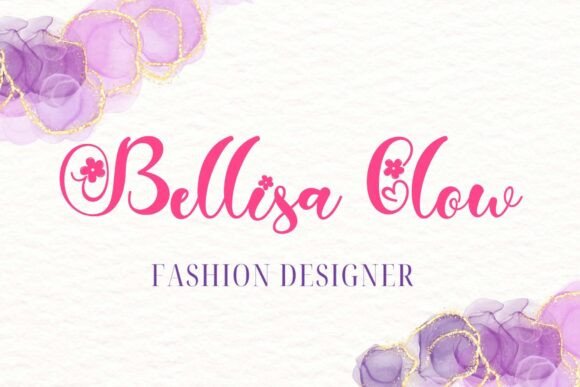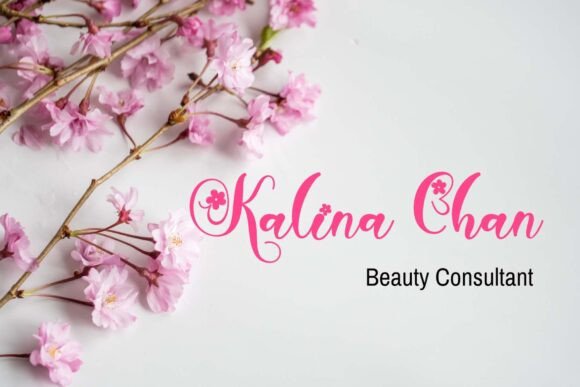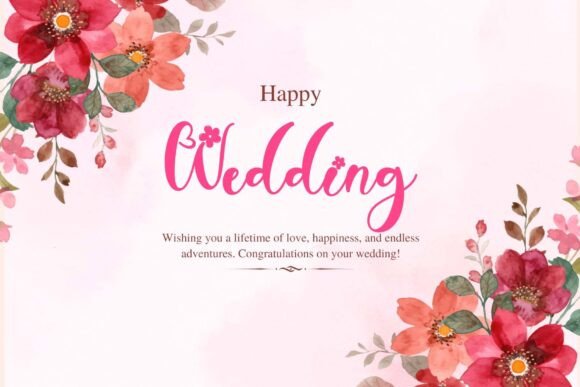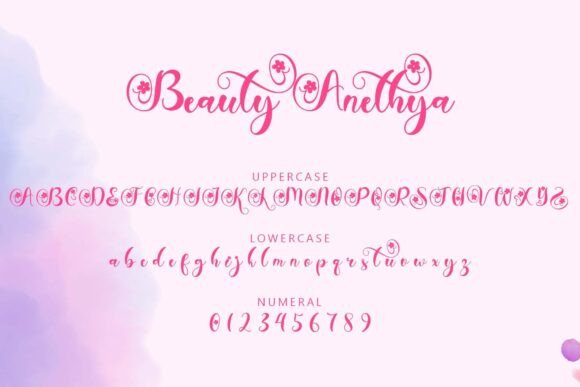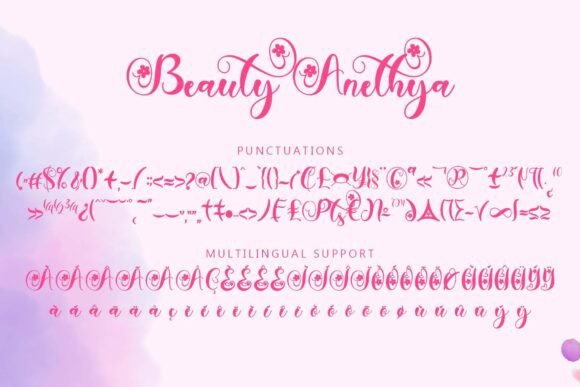
Introducing Beauty Anethya Font: Elevate Your Designs with Elegance
In the world of typography, a beautiful font can make all the difference in elevating your designs from ordinary to extraordinary. If you’re a designer, crafter, or simply someone who appreciates the art of beautiful writing, then you’re in for a treat. Say hello to “Beauty Anethya,” a stunning handwritten font that is sure to capture your heart. In this article, we’ll dive into the features, uses, and benefits of this gorgeous font, and explore how it can add a touch of elegance to your projects.
What is Beauty Anethya Font?
“Beauty Anethya” is a beautiful and elegant handwritten font, carefully crafted to bring a touch of sophistication and charm to your designs. This font is equipped with a wide range of characters, including uppercase and lowercase letters, numerals, punctuations, and multilingual support. Its versatility and aesthetic appeal make it an excellent choice for various design projects, from weddings and business branding to stickers, invitations, and more.
Key Features of Beauty Anethya Font
- Uppercase and Lowercase Letters: The font includes both uppercase and lowercase letters, allowing you to create a wide range of designs, from formal to informal.
- Numerals and Punctuations: With a complete set of numerals and punctuations, you can create complex designs and text arrangements with ease.
- Multilingual Support: The font supports multiple languages, making it an excellent choice for designers who work with international clients or want to create designs for a global audience.
“Beauty Anethya” font is incredibly versatile and can be used for a wide range of design projects, including:
- Weddings: Create beautiful wedding invitations, place cards, and decorations with this elegant font.
- Business Branding: Use “Beauty Anethya” to add a touch of sophistication to your business logo, packaging, or marketing materials.
- Stickers and Labels: Add a personal touch to your stickers and labels with this beautiful handwritten font.
- Invitations and Banners: Create eye-catching invitations and banners for special occasions, such as holidays, mother’s day, or summer events.
Benefits of Using Beauty Anethya Font
So, why choose “Beauty Anethya” font for your designs? Here are just a few benefits:
- Elegance and Sophistication: This font adds a touch of elegance and sophistication to any design, making it perfect for high-end brands or special occasions.
- Versatility: With its wide range of characters and multilingual support, “Beauty Anethya” font can be used for various design projects and languages.
- Easy to Read: The font is clear and easy to read, making it perfect for body text or headings.
Tips for Using Beauty Anethya Font
To get the most out of “Beauty Anethya” font, here are a few tips:
- Pair with Other Fonts: Experiment with pairing “Beauty Anethya” with other fonts to create a unique and interesting contrast.
- Use for Headings and Titles: Use this font for headings and titles to add a touch of elegance and sophistication to your designs.
In conclusion, “Beauty Anethya” font is a beautiful and elegant handwritten font that can elevate your designs to the next level. With its wide range of characters, multilingual support, and versatility, it’s perfect for various design projects, from weddings and business branding to stickers and invitations. Whether you’re a designer, crafter, or simply someone who appreciates beautiful typography, “Beauty Anethya” font is sure to capture your heart.